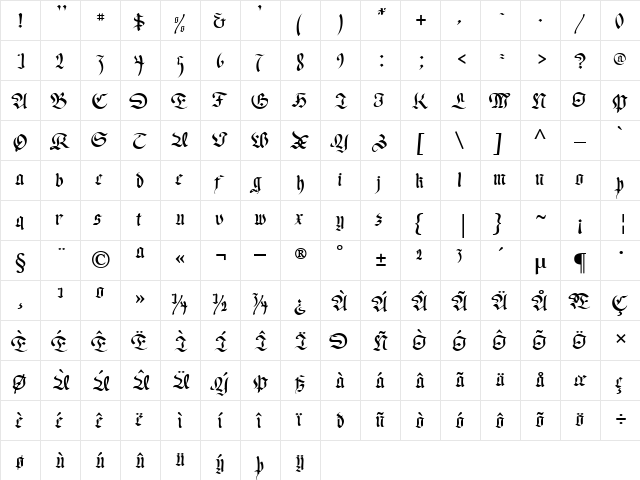
Regent UNZ Regular
| Foundry | CAT-Fonts |
Design Context for Regent UNZ Typeface
Regent UNZ takes a measured approach to typography — its balanced proportions and neutral character make it a reliable workhorse for both digital and print work.